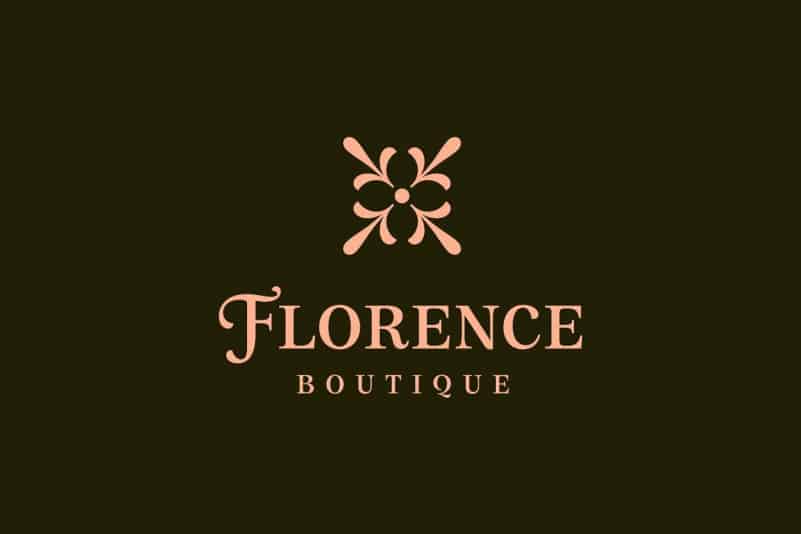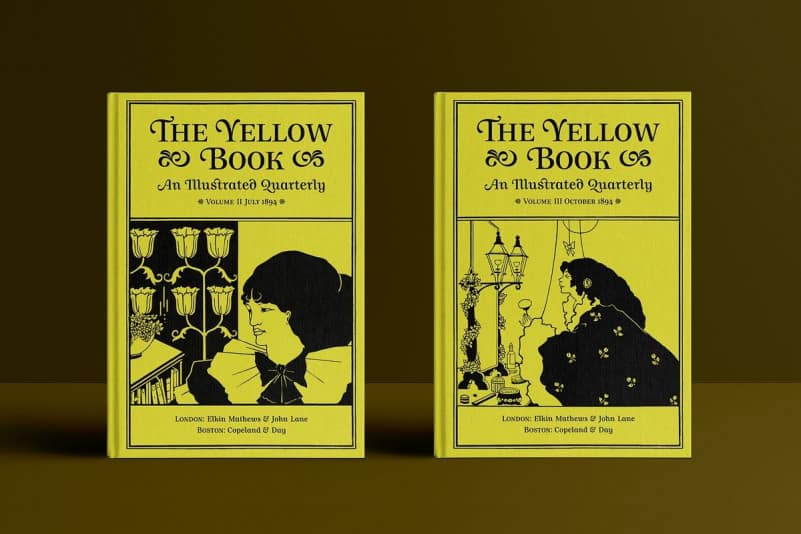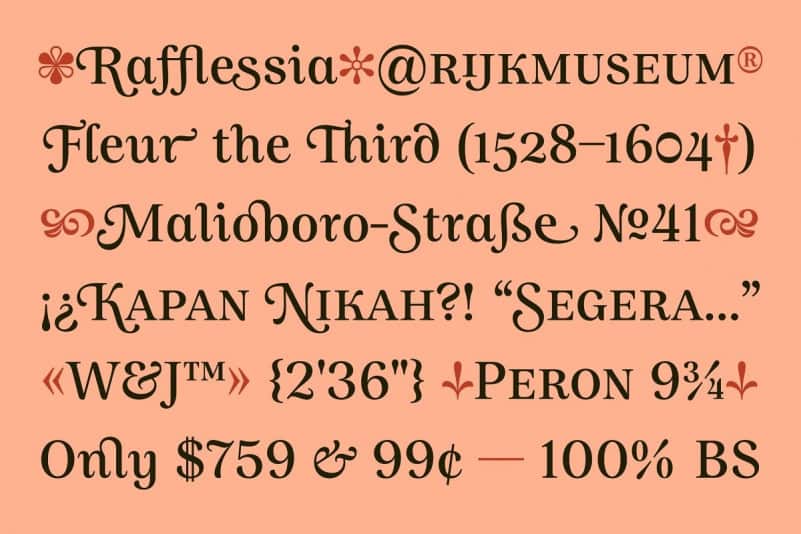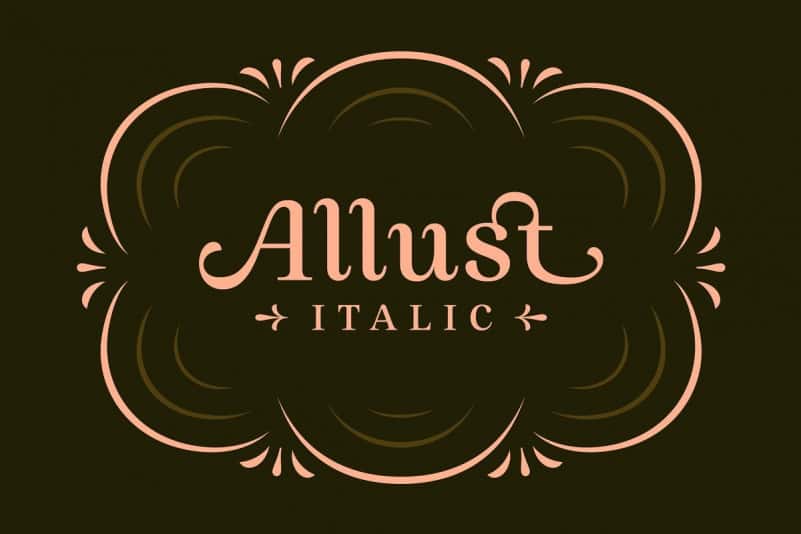
Allust Serif Font
Introducing. Allust Serif Font is a display typeface with a unique and expressive yet moderate personality resulted from its organic elegant shapes which are inspired by Spanish transitional typefaces from the 18th century. The first draw of this font is started back in 2016 and the idea was to make an upright italic font inspired by italic calligraphy. This font is perfectly suitable for both titles and short text.